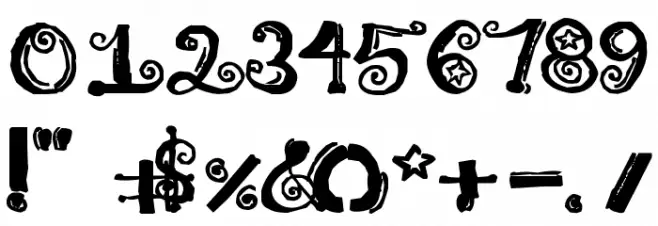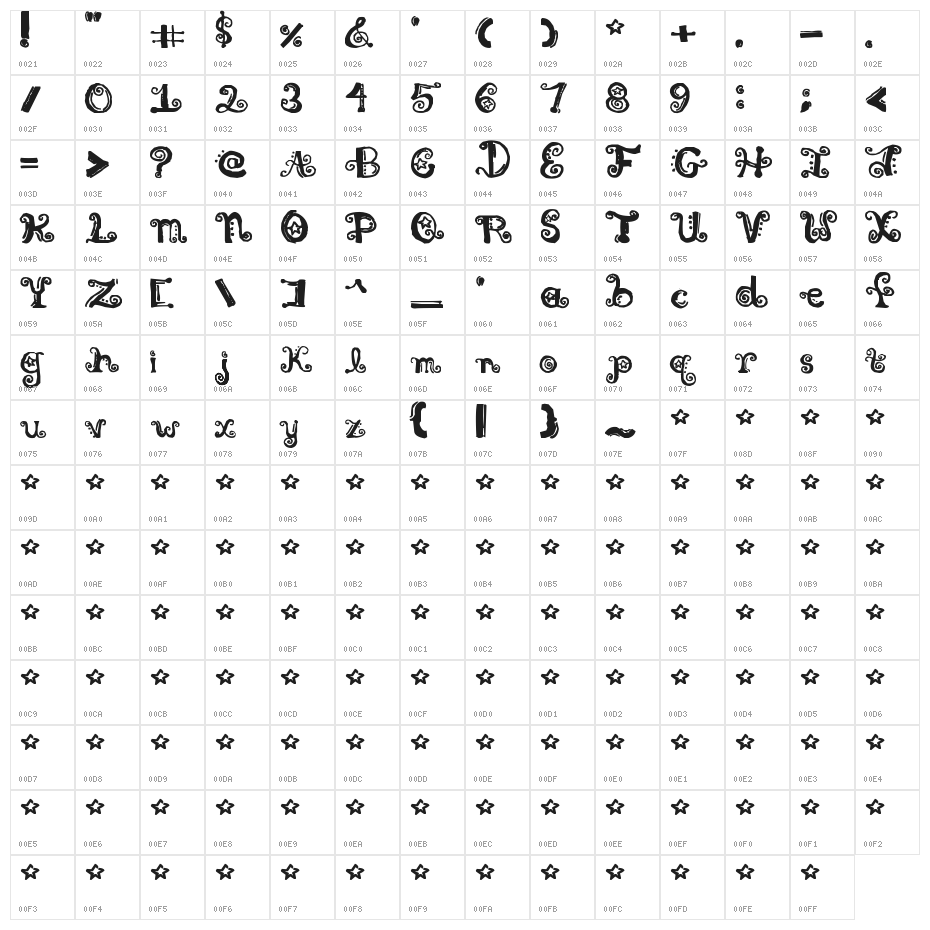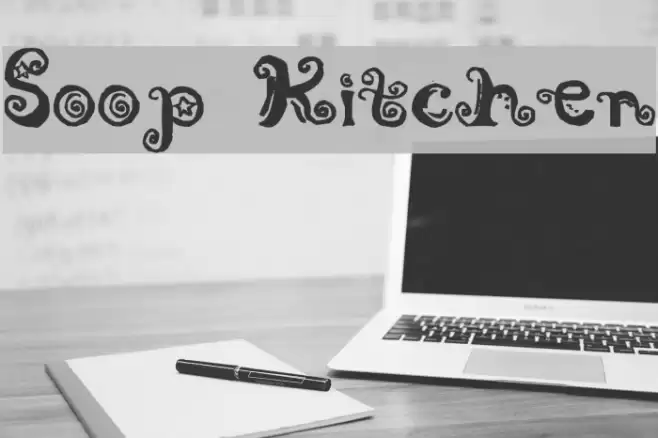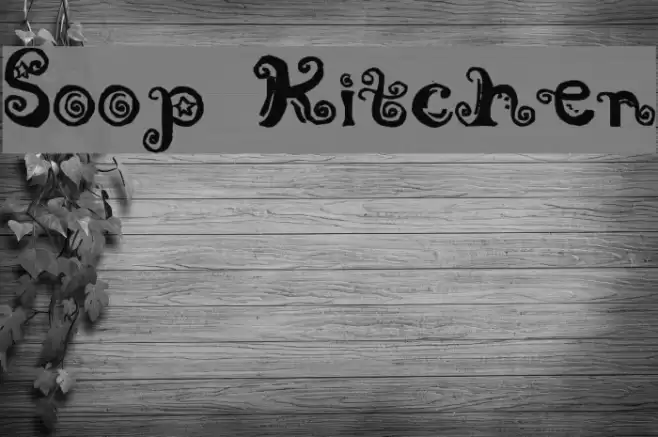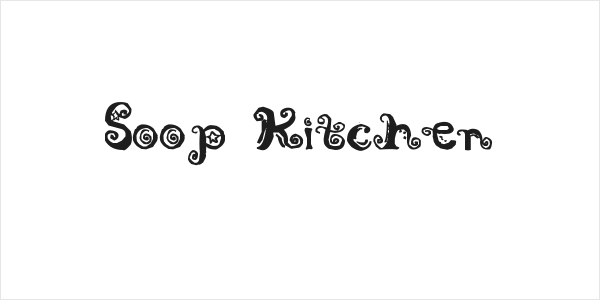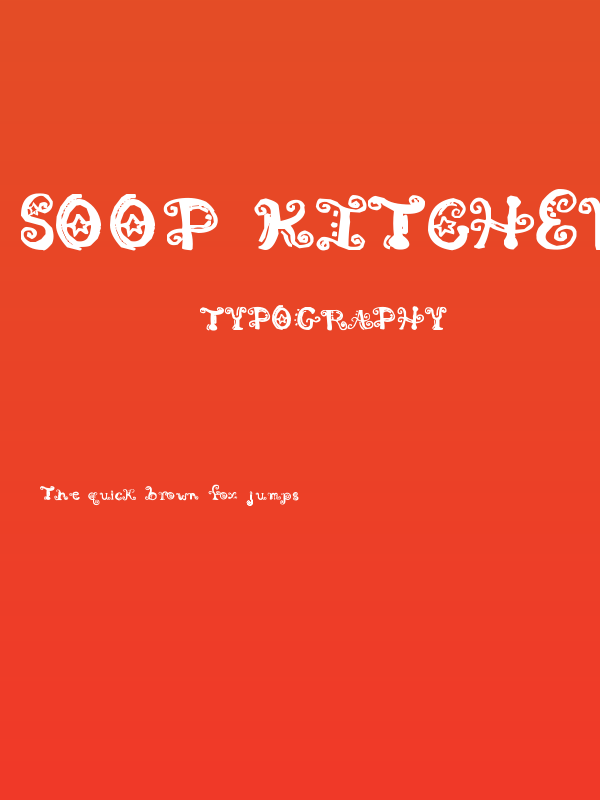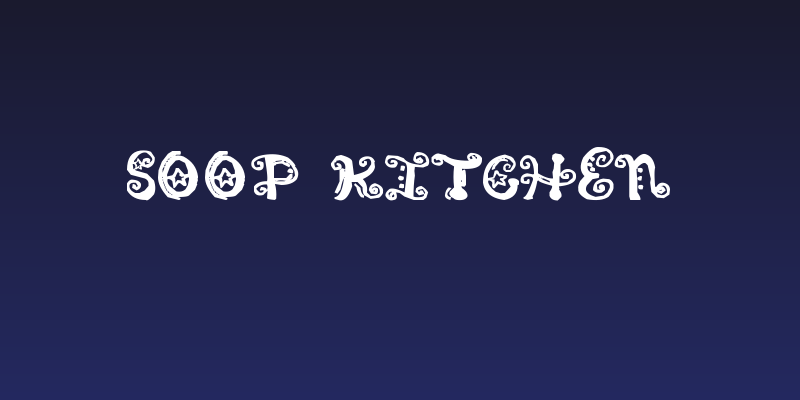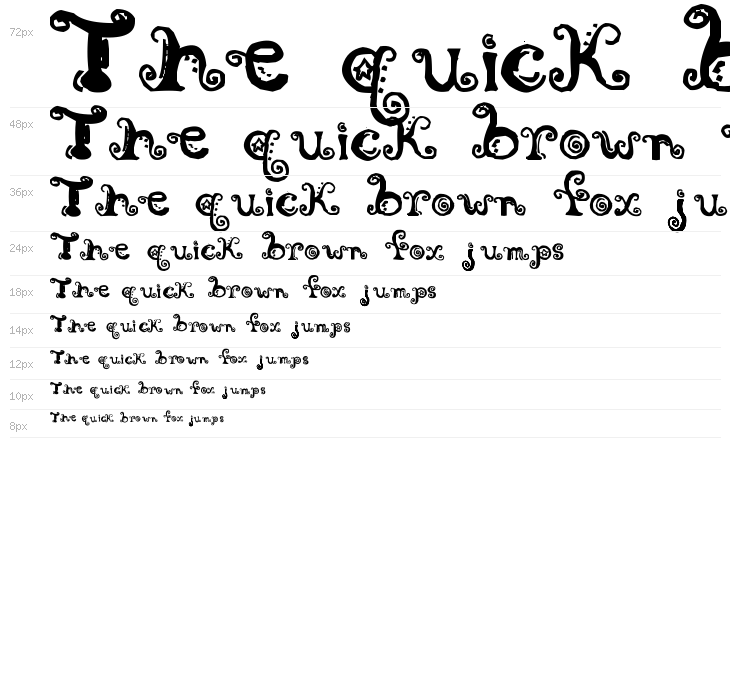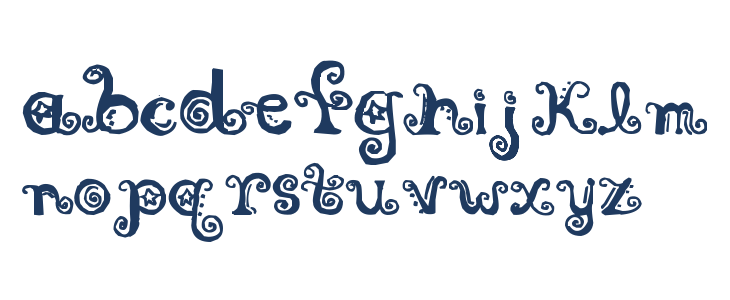
Soop Kitchen Font
Soop Kitchen Description
This font features a whimsical and playful design with a decorative flair. Each character is adorned with unique embellishments, such as swirls, dots, and stars, giving it a lively and artistic appearance. The letters are bold and have a hand-drawn quality, making them stand out with their intricate details. The numbers and special characters follow the same decorative style, ensuring consistency throughout the font. Its artistic nature makes it ideal for creative projects that require a touch of fun and uniqueness.
| Proposed Projects | Ideal for children's book covers, playful posters, party invitations, and creative branding projects. |